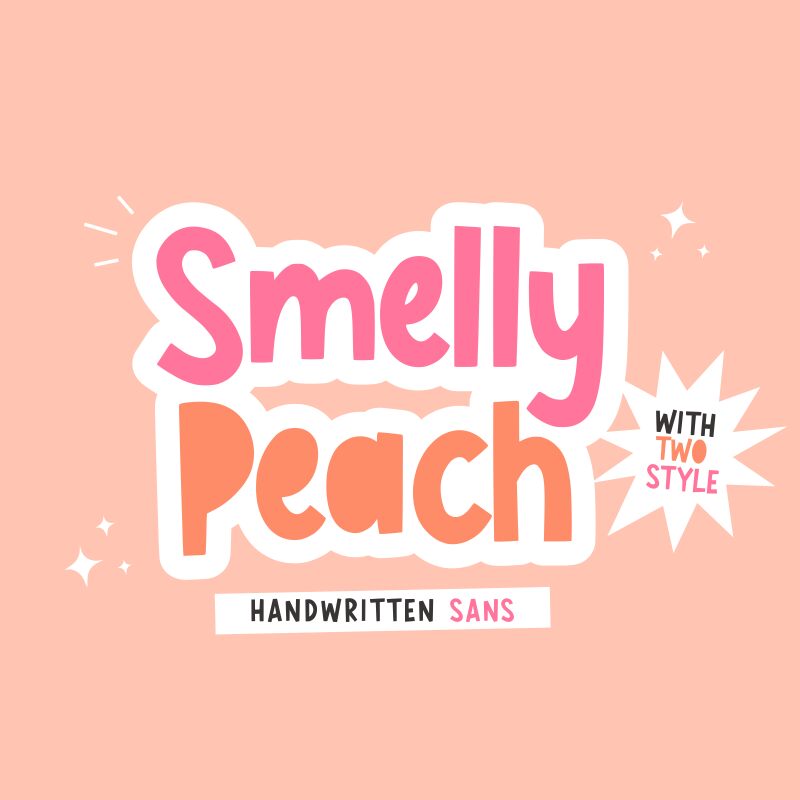
Smelly Peach Blocky
Introducing Smelly Peach Blocky, a playful and eye-catching display font from Allouse.Studio. Perfect for headlines, branding, posters and other creative projects that need a unique cartoon style.